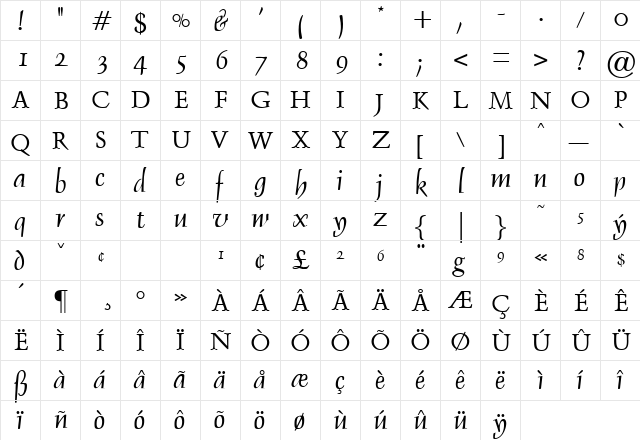
Debden DB Regular
Design Context for Debden DB Typeface
Debden DB is a composed and adaptable typeface that performs quietly and consistently across a wide range of design contexts.